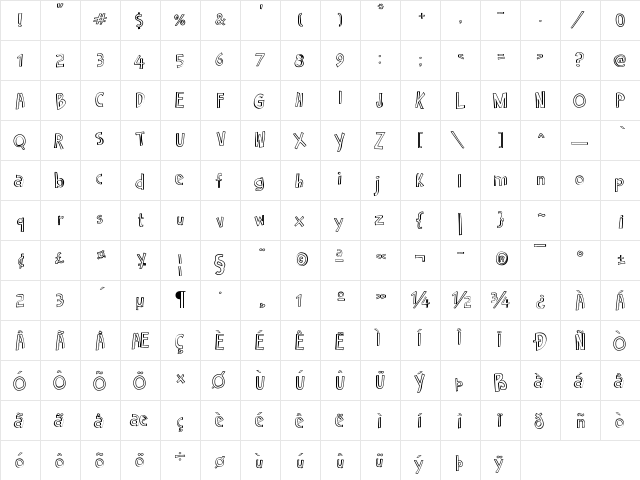
Cartoon 2 Package Regular
Design Context for Cartoon 2 Package Typeface
Cartoon 2 Package has an approachable, lighthearted character — its loose, expressive forms are well-suited to children's content, casual branding, and fun-first design.
Font Pairing: Pairs well with a rounded or humanist sans for body copy, maintaining the friendly tone without relying on Cartoon 2 Package to carry extended reading.
Pro Tip: Avoid using Cartoon 2 Package for long passages of text — it works best for headlines, labels, and short calls to action.